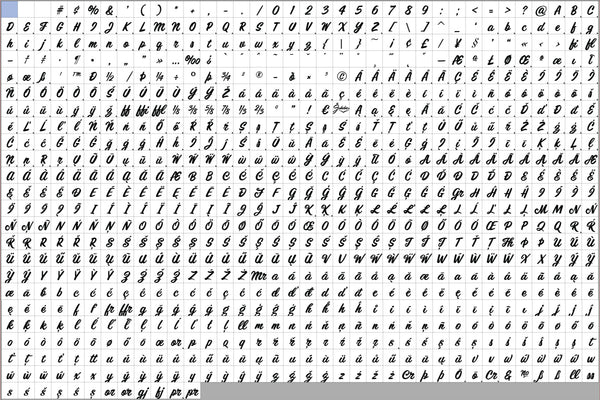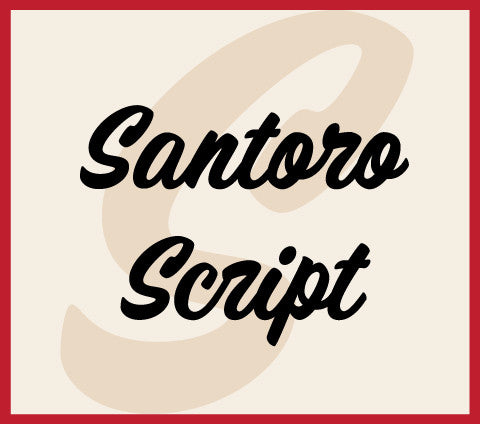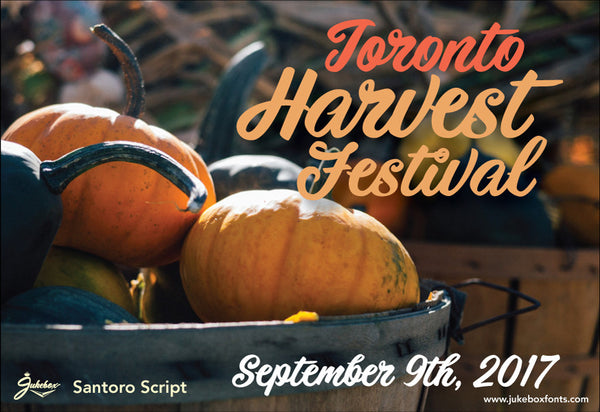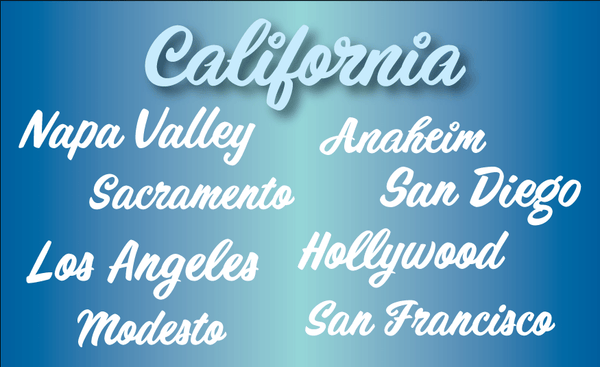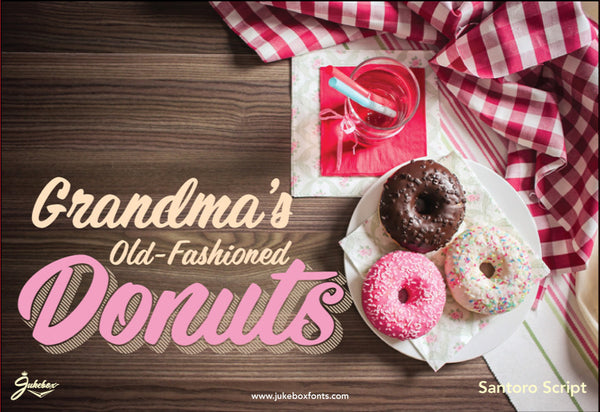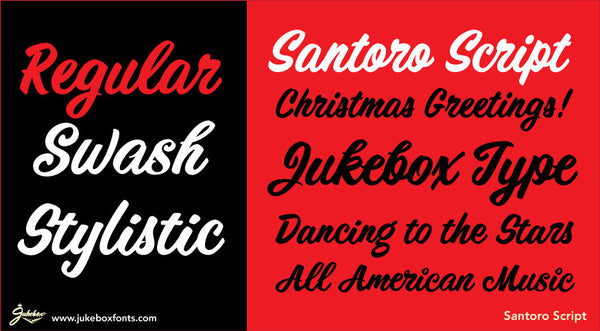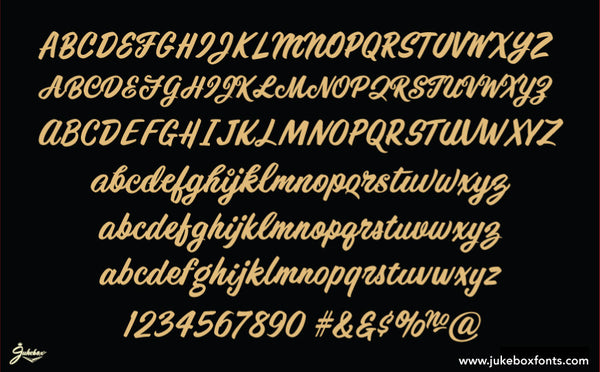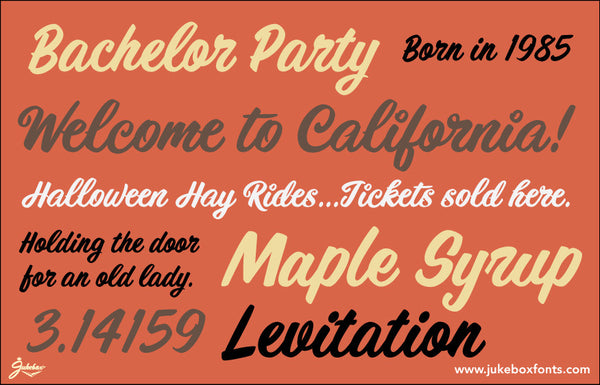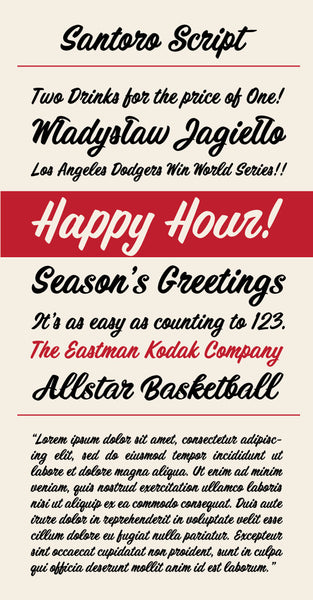
Santoro Script
Santoro Script is a fun, happy script font created in the style of handpainted sign lettering. It displays a jubilant attitude which will add a spontaneous, warm and friendly look to any design. The typeface contains at least three versions of every letter found under the Swash and Stylistic Alternates OpenType features as well as a few additional letter versions and ligatures under the Titling and Discretionary Ligatures OpenType features. These extra alternates help give the font a hand painted feeling.